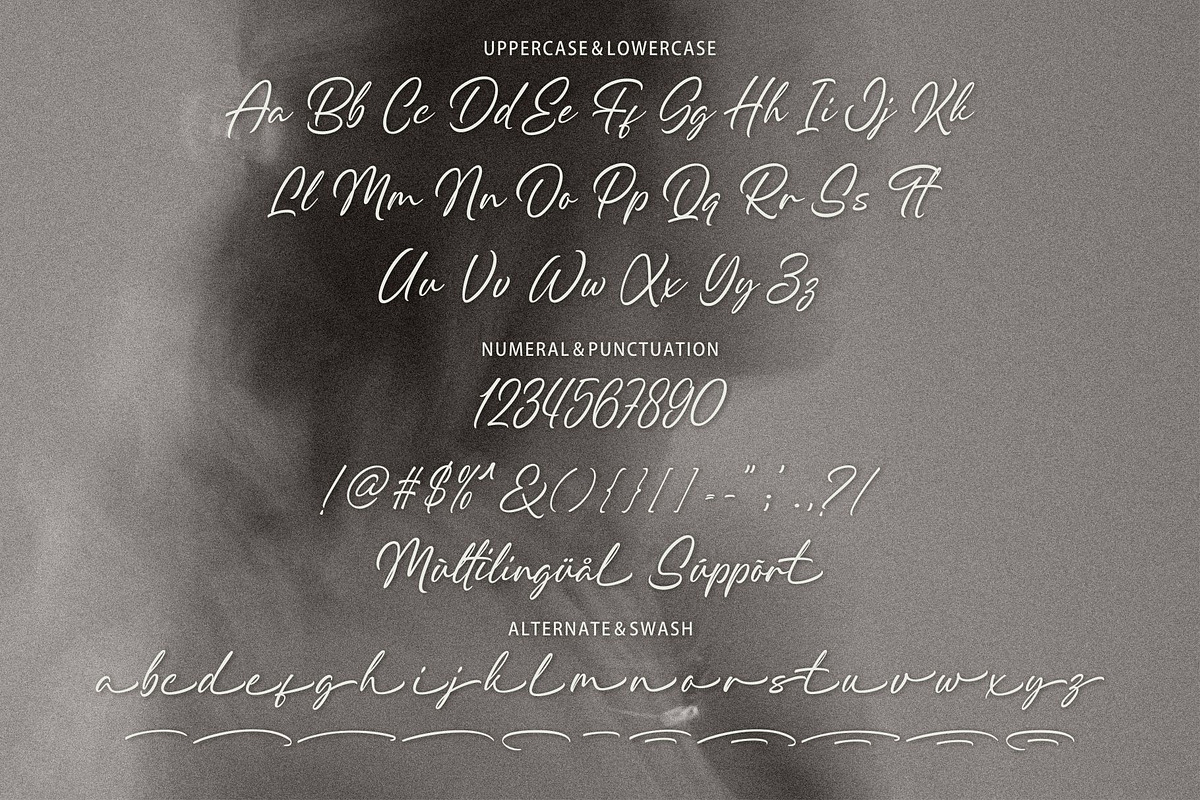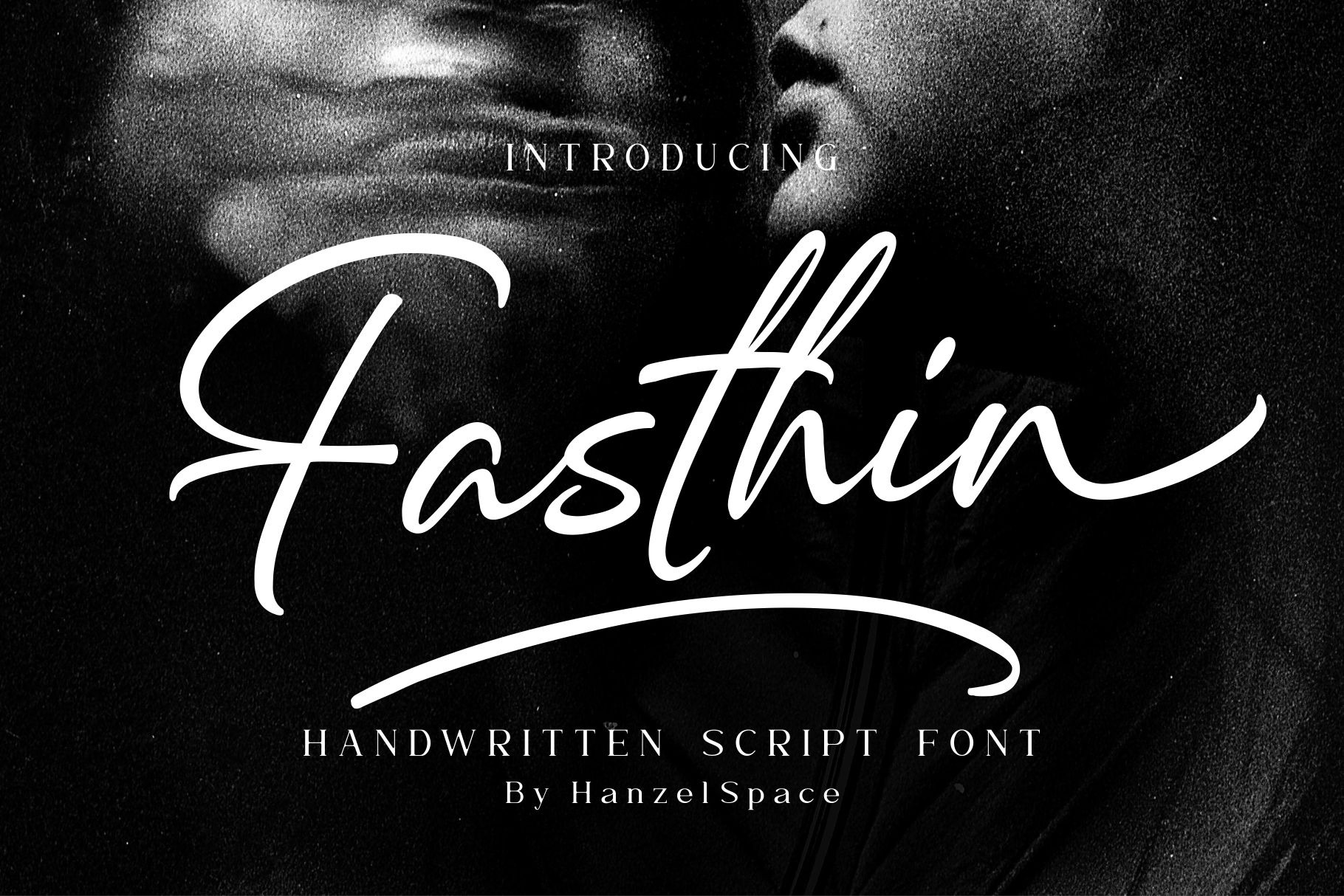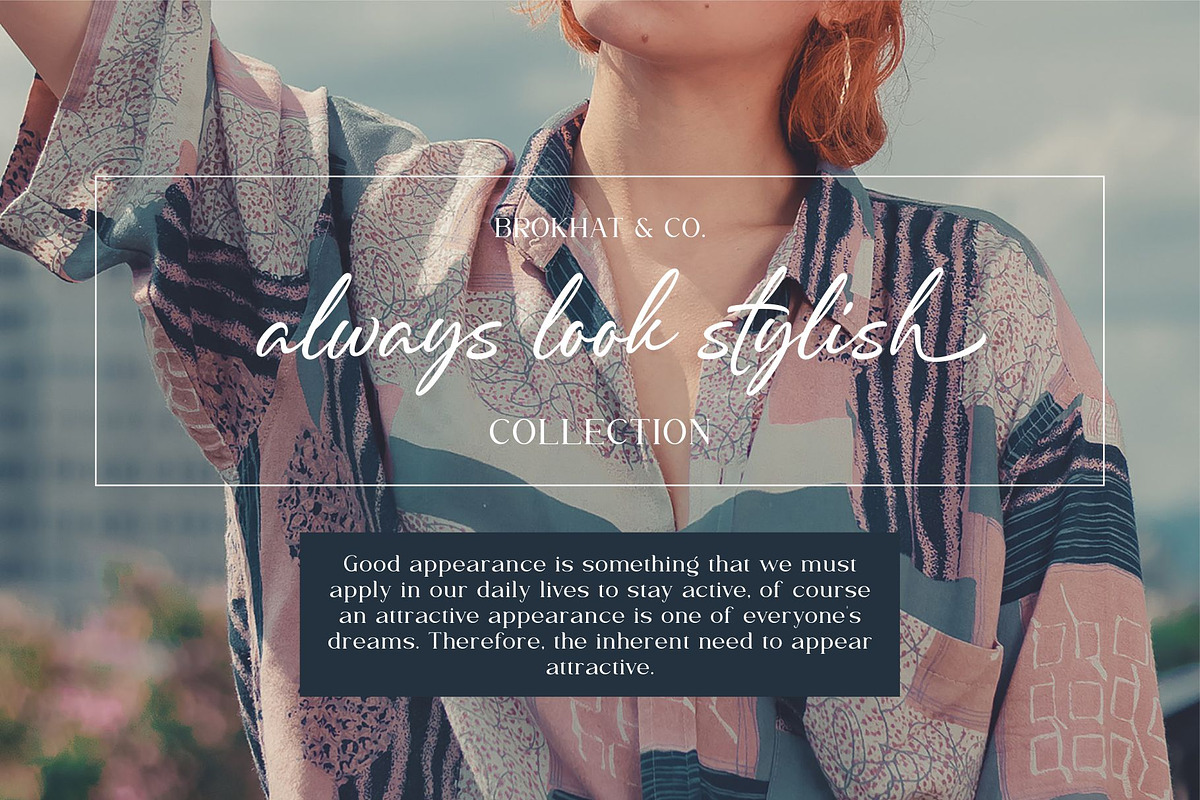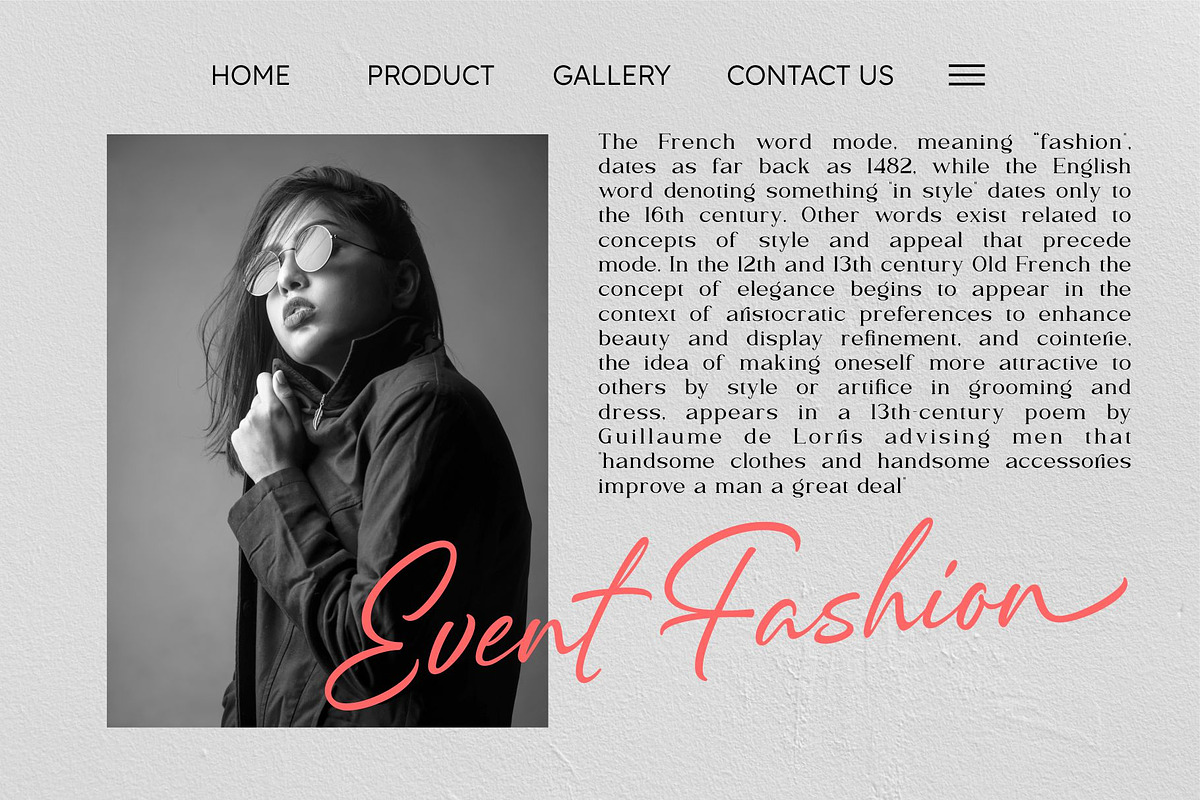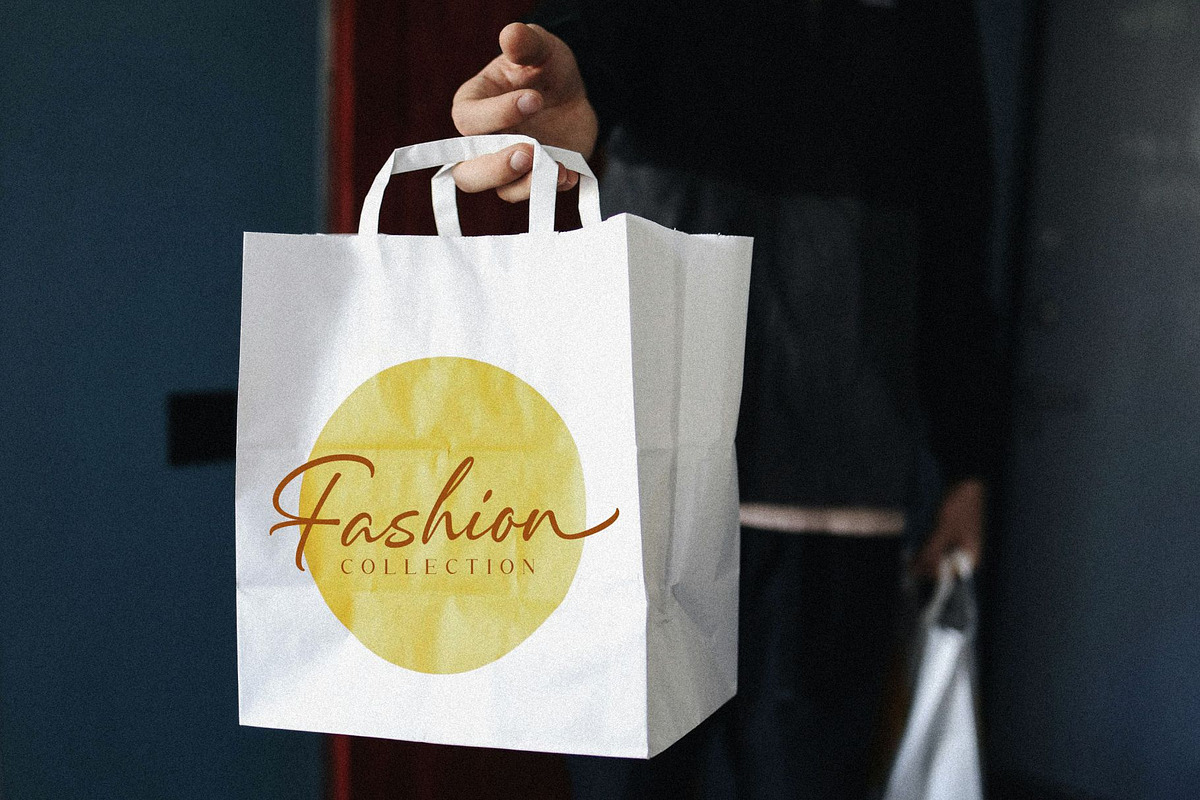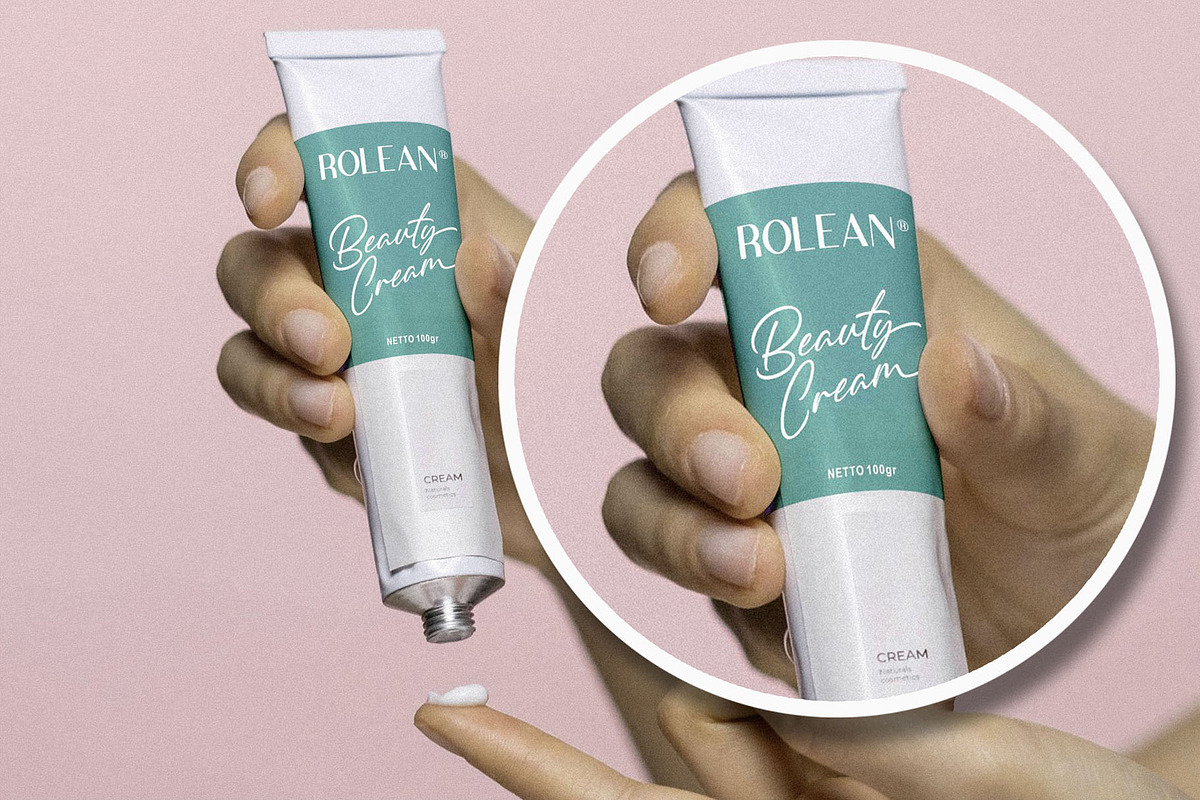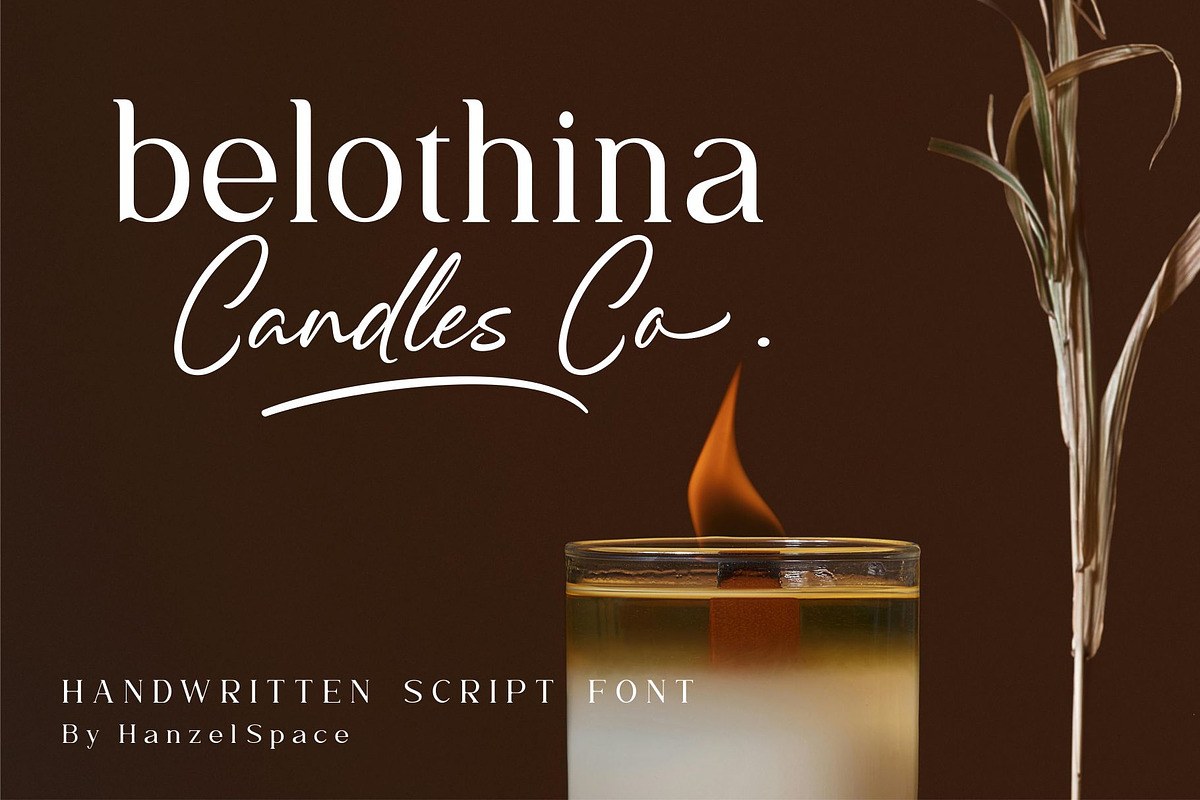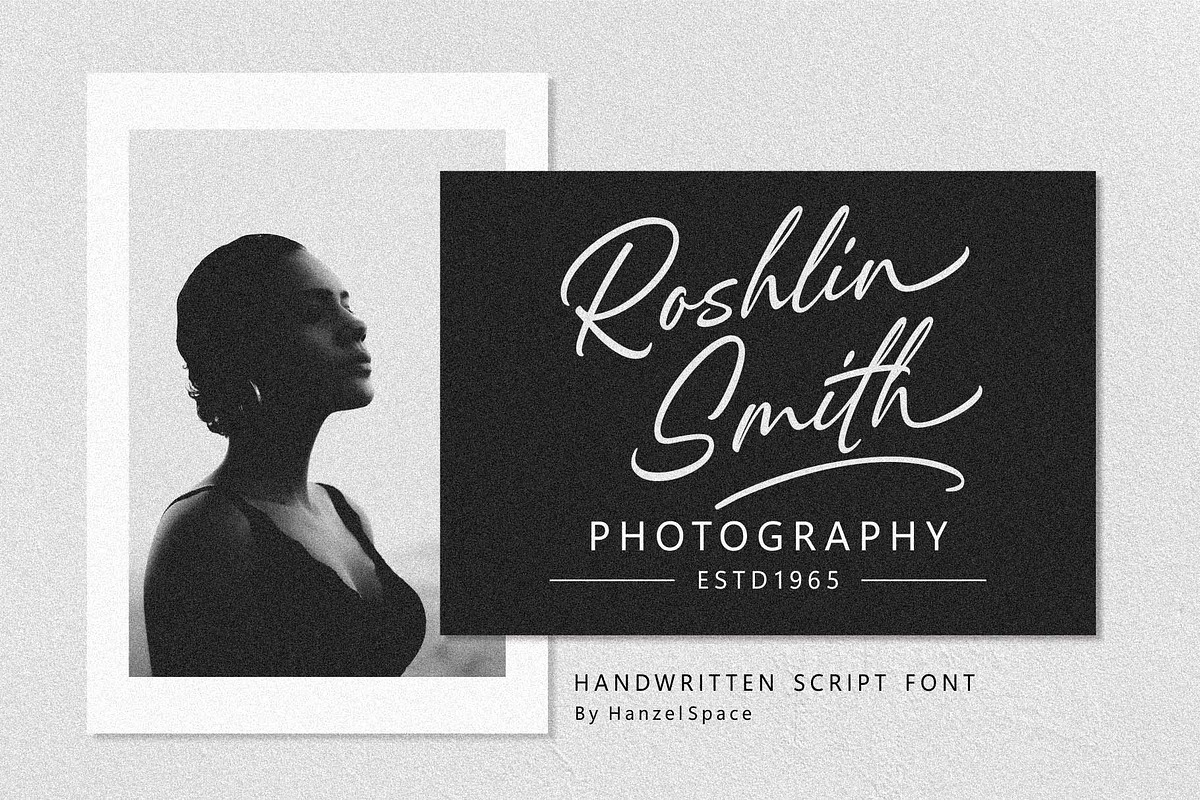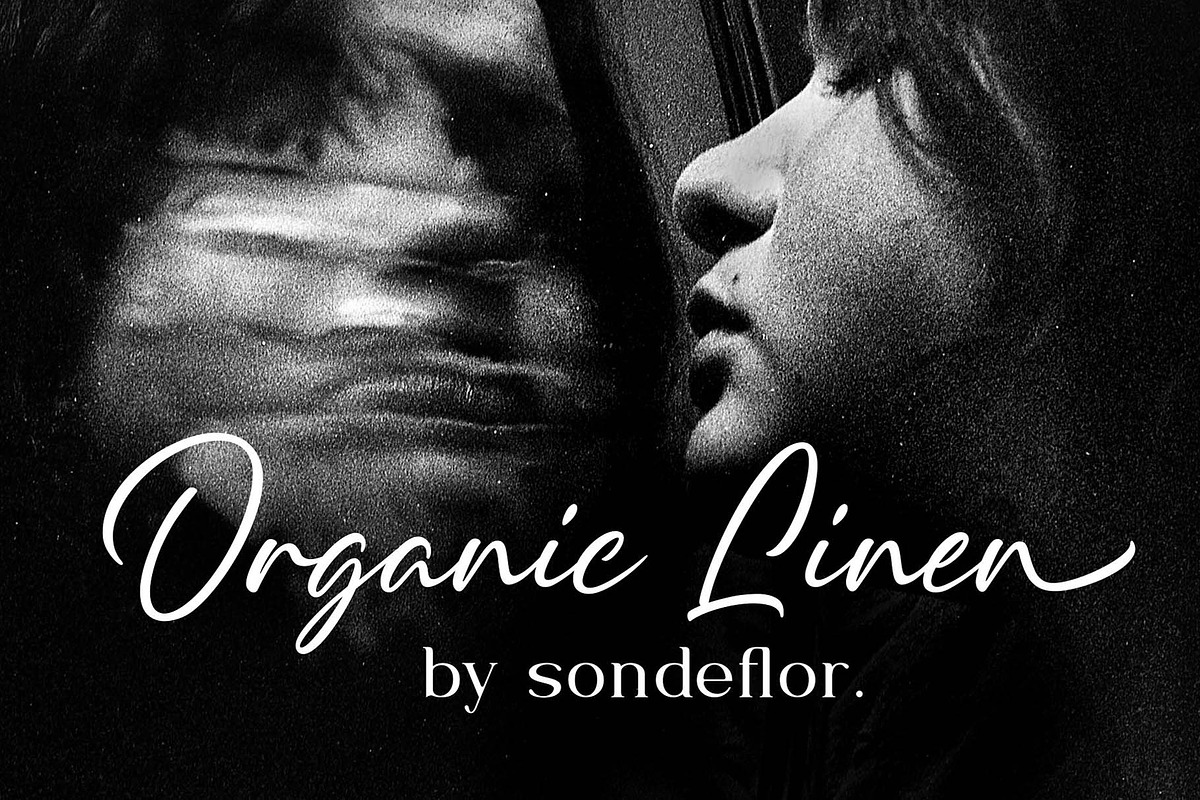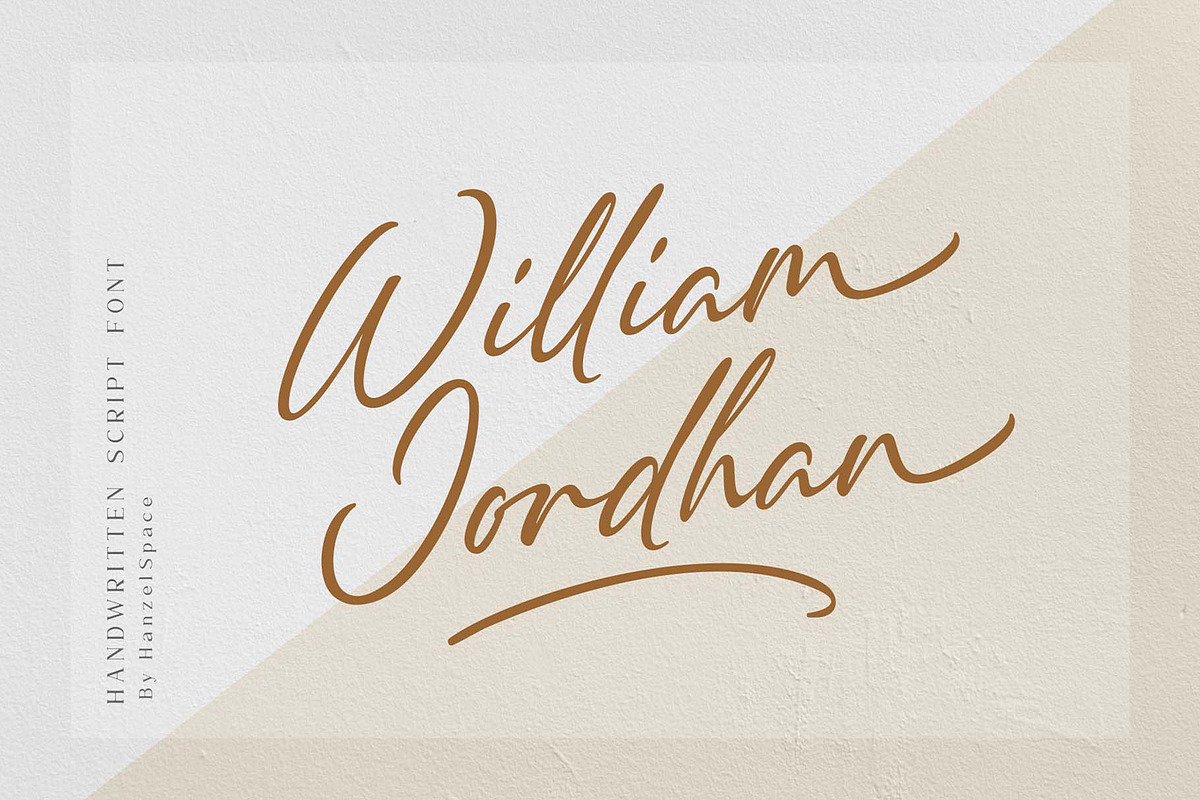
Fasthin - Handwritten Script Font
Proudly present Fasthin – Handwritten Script Font that has own unique style & modern look. This typeface is perfect for an elegant & luxury logo, book or movie title design, fashion brand, magazine, clothes, lettering, quotes, and so much more.
Full Set of standard alphabet and punctuation
Extra set of ending swashed lowercase
Handwritten ligatures